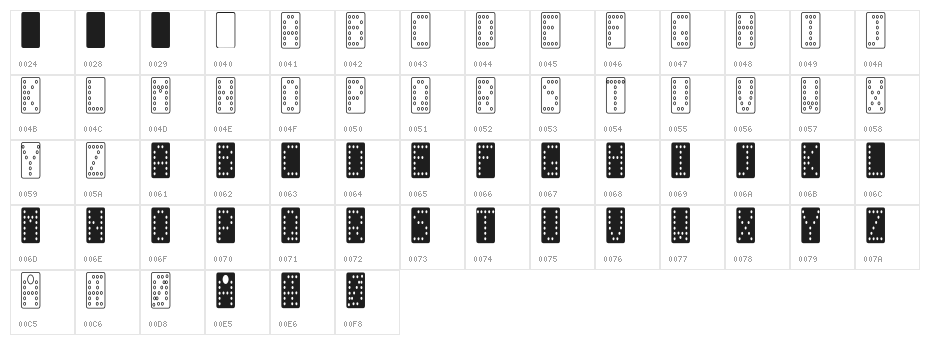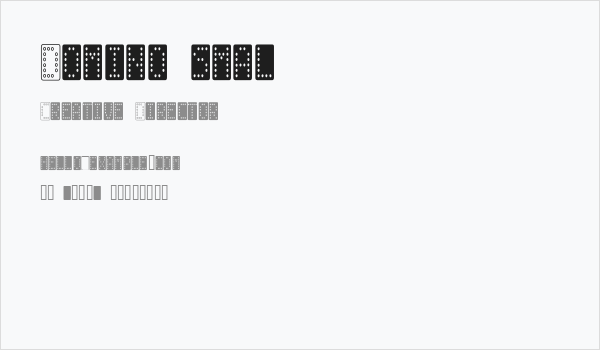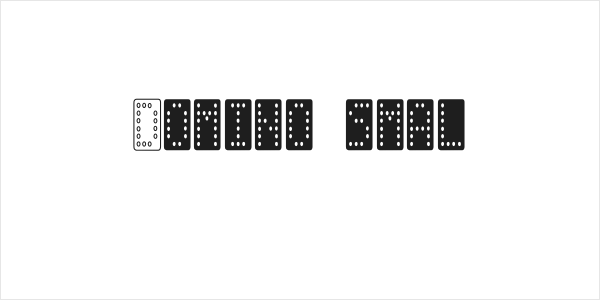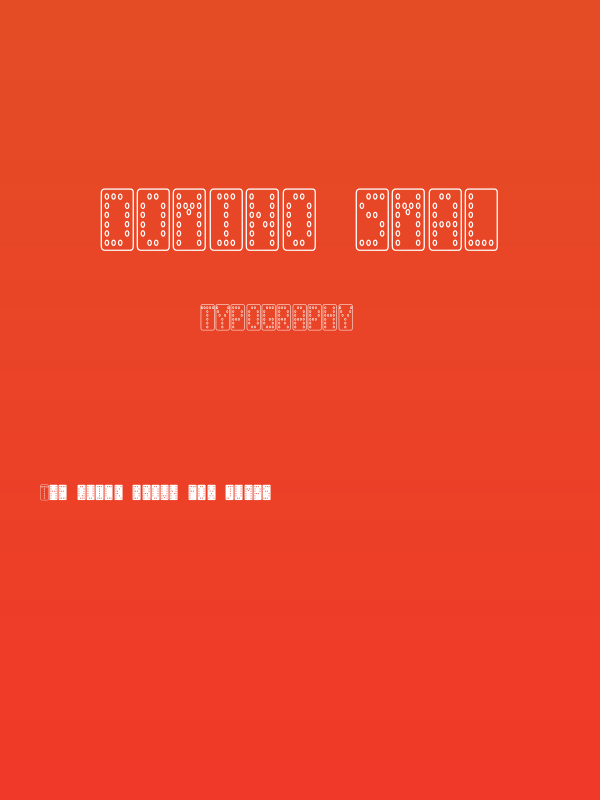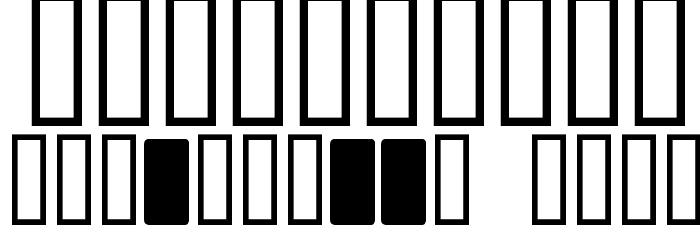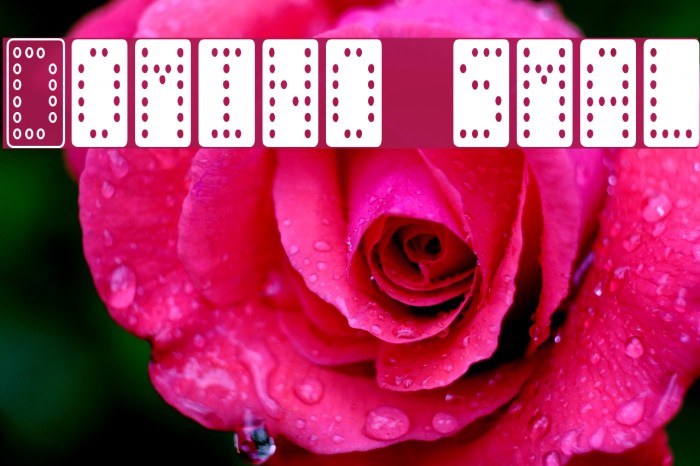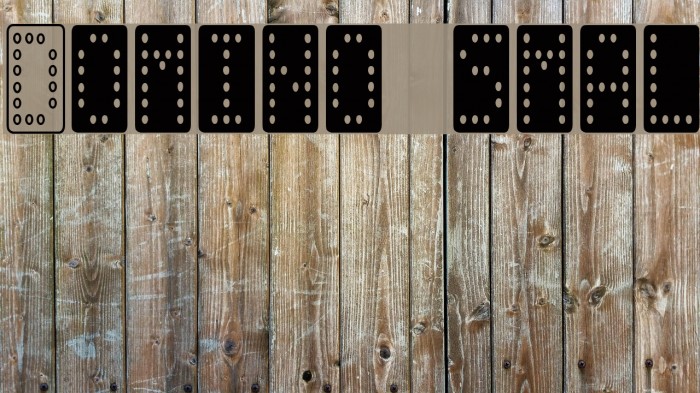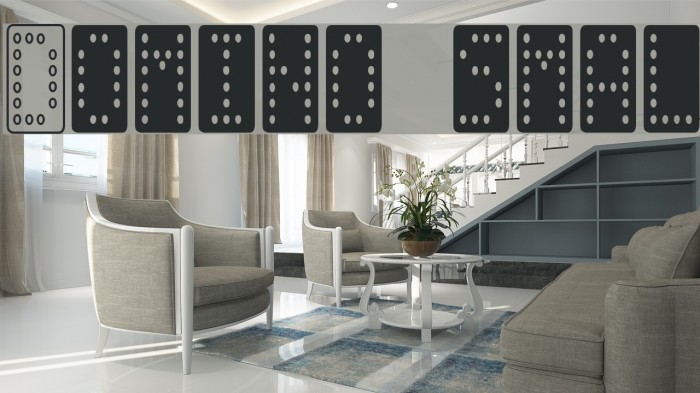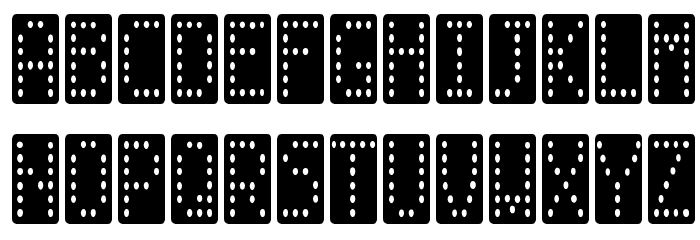
Domino smal Font
Domino smal Description
This font is a creative and playful representation of the alphabet using domino tiles. Each letter is formed by the arrangement of dots on a domino, capturing the essence of the classic game. The design is both unique and visually engaging, making it ideal for projects that require a touch of whimsy and nostalgia. The font is presented in both outlined and filled styles, offering versatility in its application. Its bold and decorative nature makes it stand out, while the consistent use of domino patterns ensures a cohesive look across all characters.
| Overall Style | Playful, Creative |
| Use Case | Logos, Posters, Creative Displays |
| Proposed Projects | Ideal for game-themed designs, educational materials, playful branding, and creative posters. |